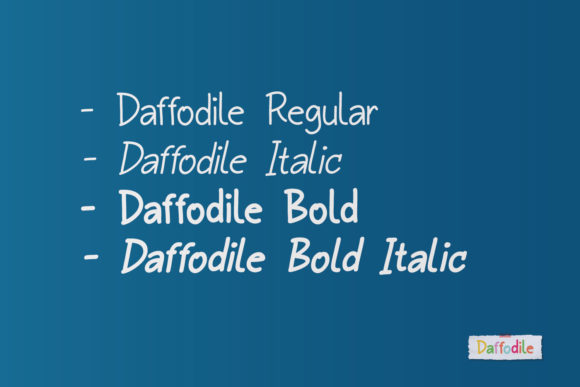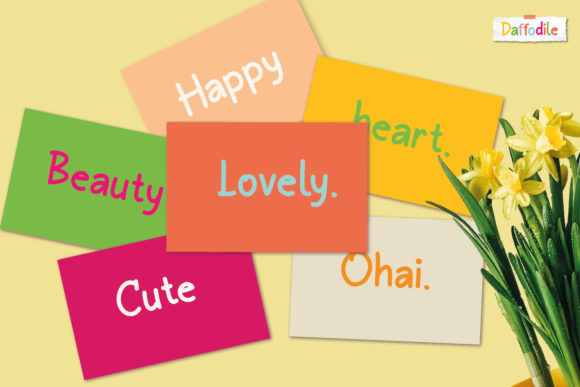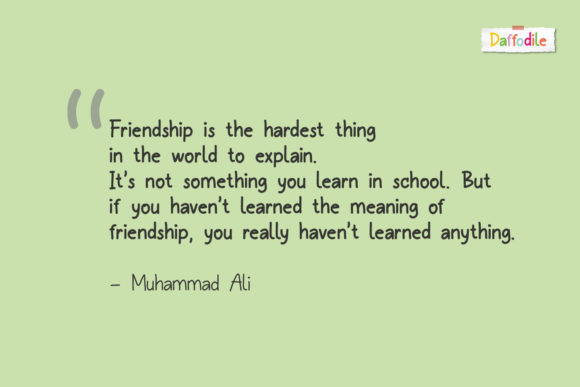
Introduction to Daffodile Font
Daffodile is a simple and friendly handwritten font.
It maintains its classy calligraphic influences while feeling contemporary and fresh This versatility will appeal to a wide range of crafty ideas, from letterheads and titles, to stationery.
Key Features of Daffodile Font
Why Choose Daffodile Font?
Daffodile Font offers exceptional quality and versatility, making it a valuable addition to your design toolkit. Whether you’re creating for personal projects or commercial use, Daffodile Font delivers professional results.